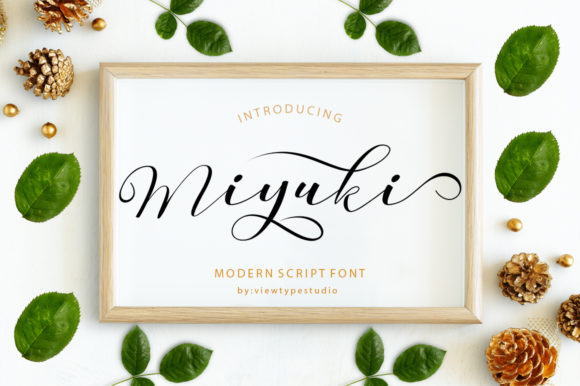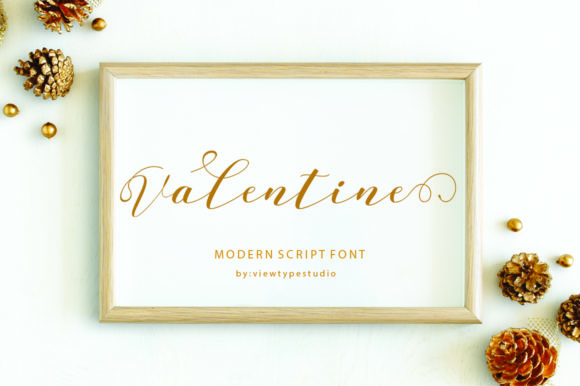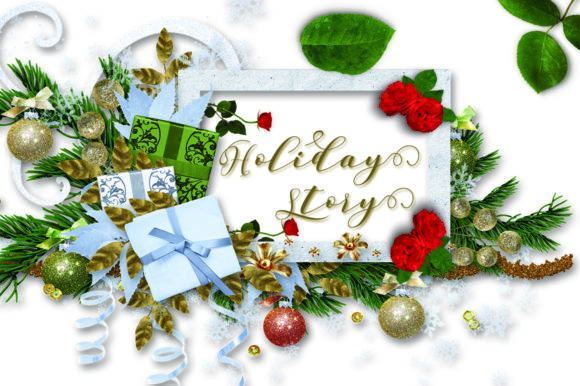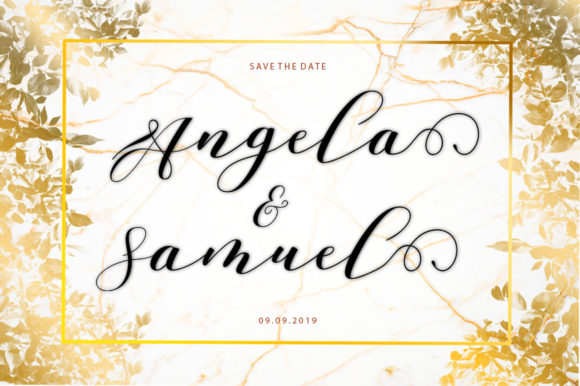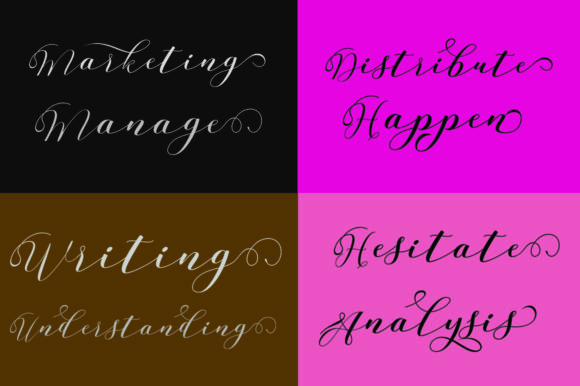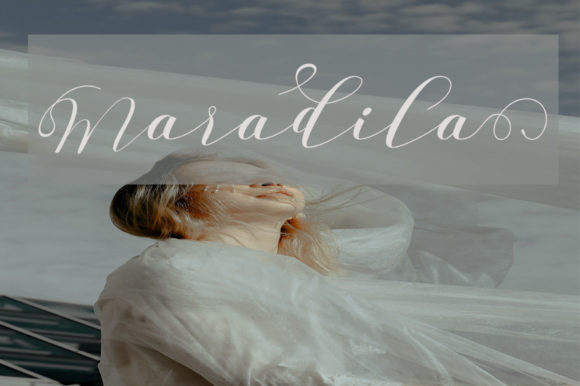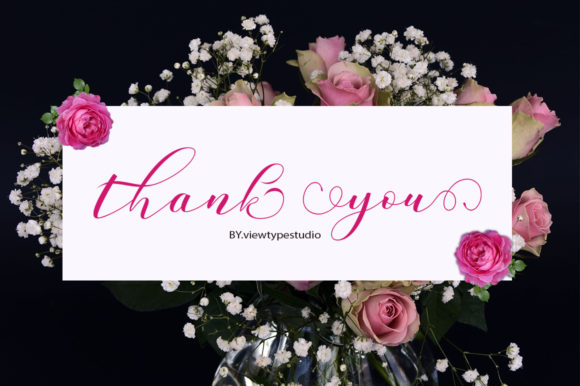
Miyuki Font
About Miyuki Font
Miyuki is an incredibly stunning handwritten font with a lovely feel. Use it to turn any design idea into a true standout!